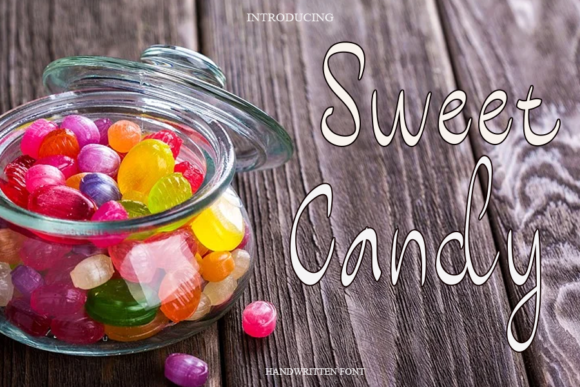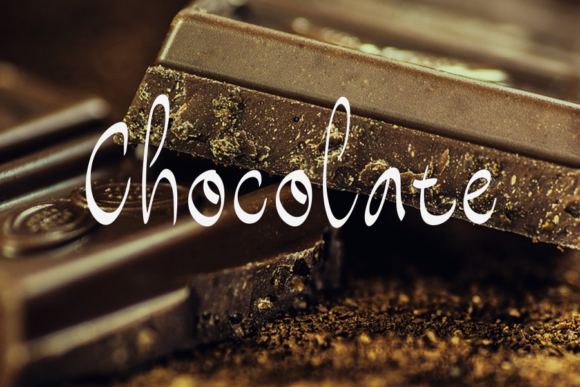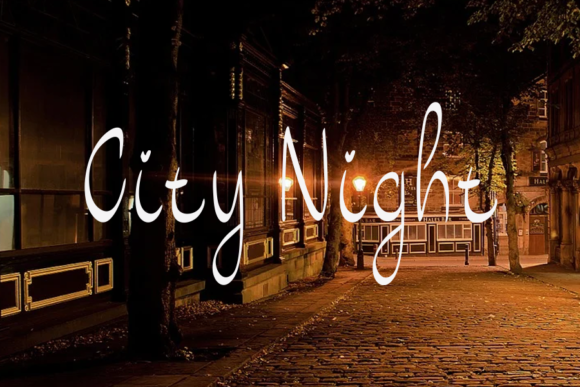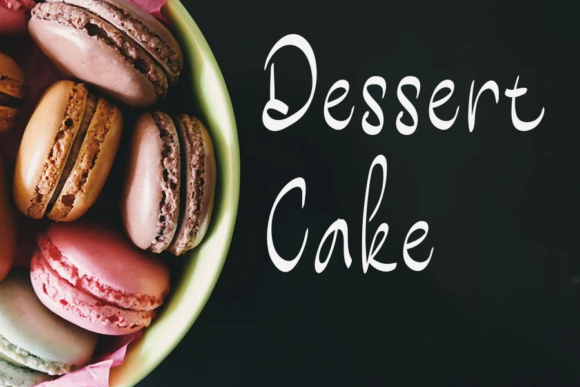
About Sweet Candy Font
Sweet Candy is a handwritten font that can be used for all chalkboard quotes or teaching material! Its authentic handwritten look and feel will add a personal and realistic feel to your designs.